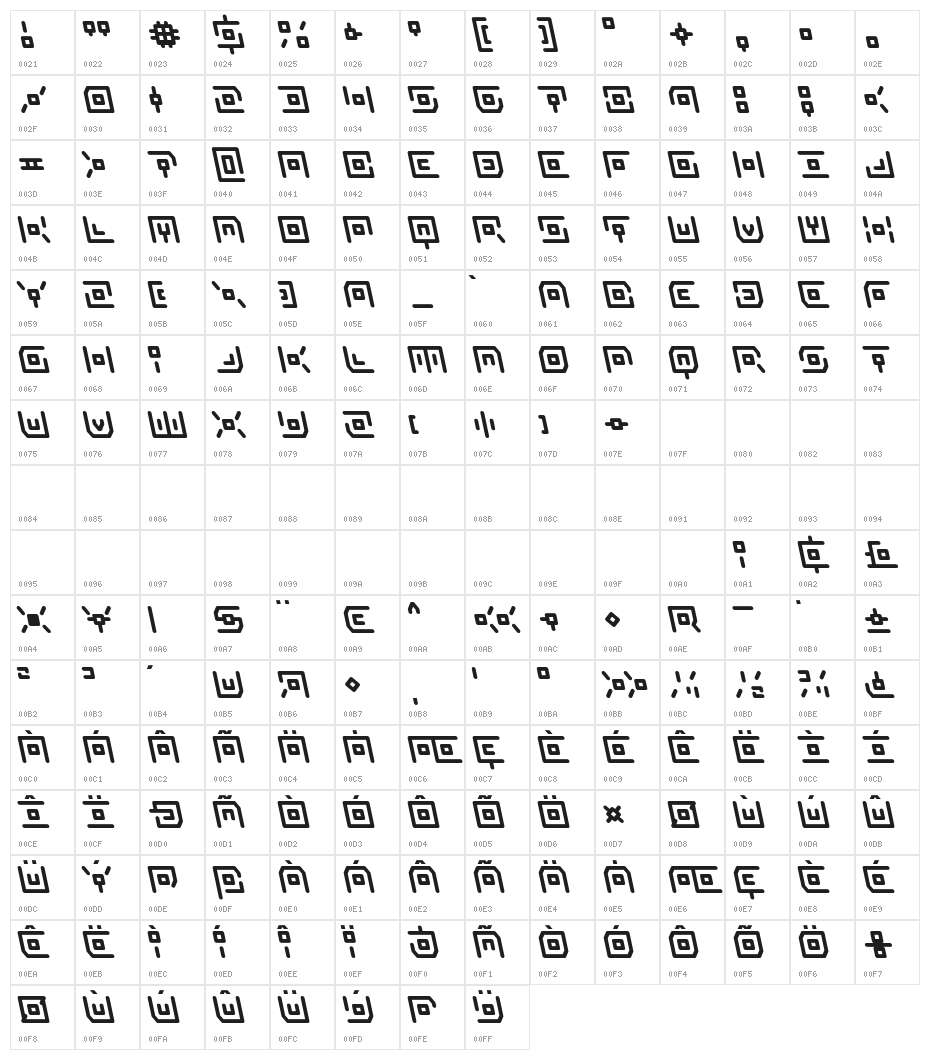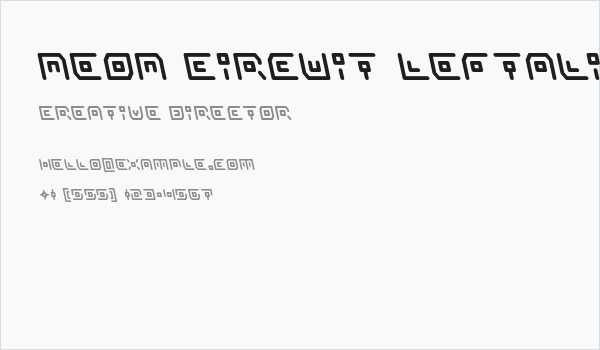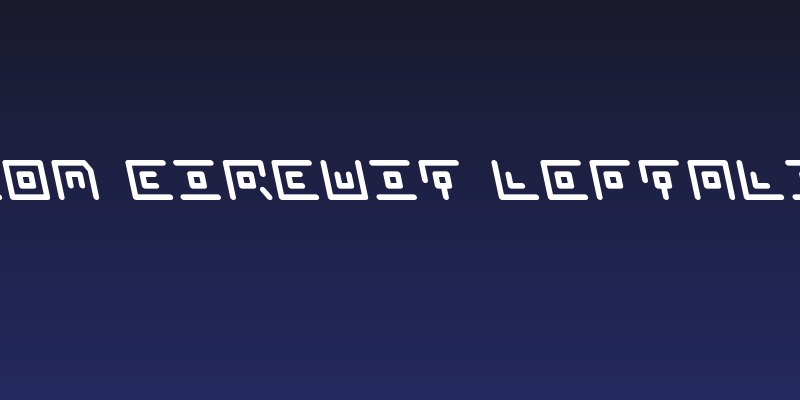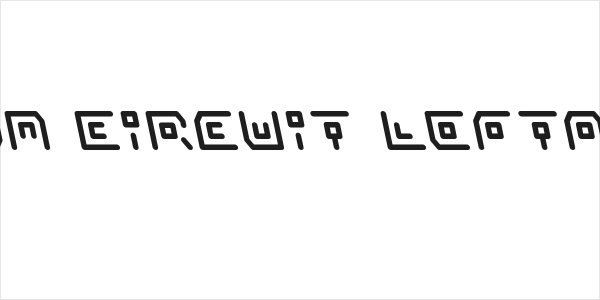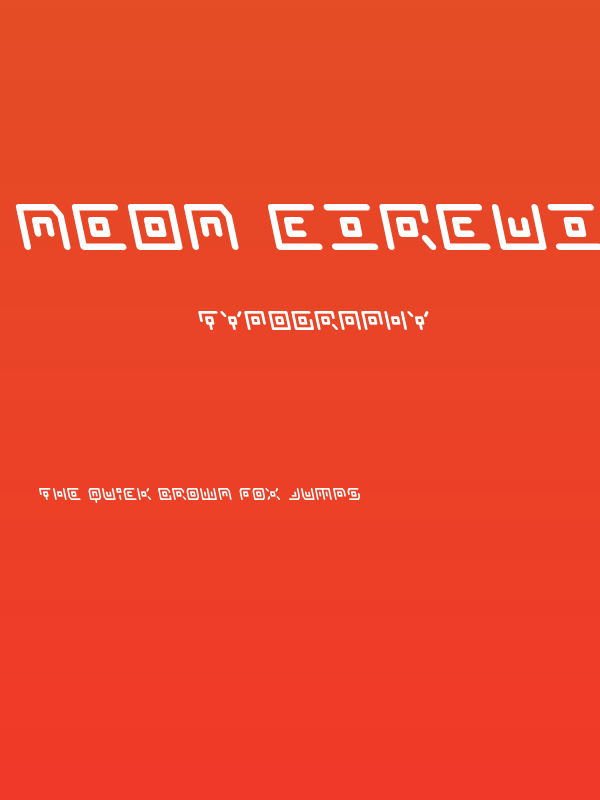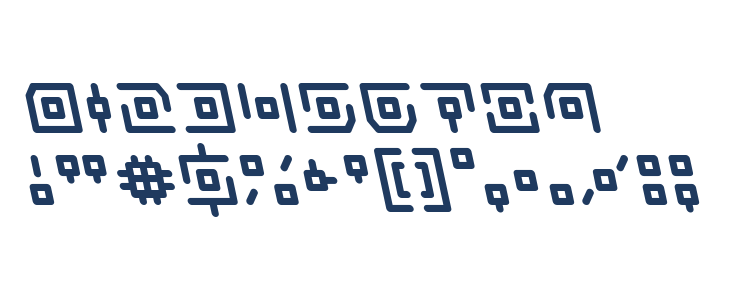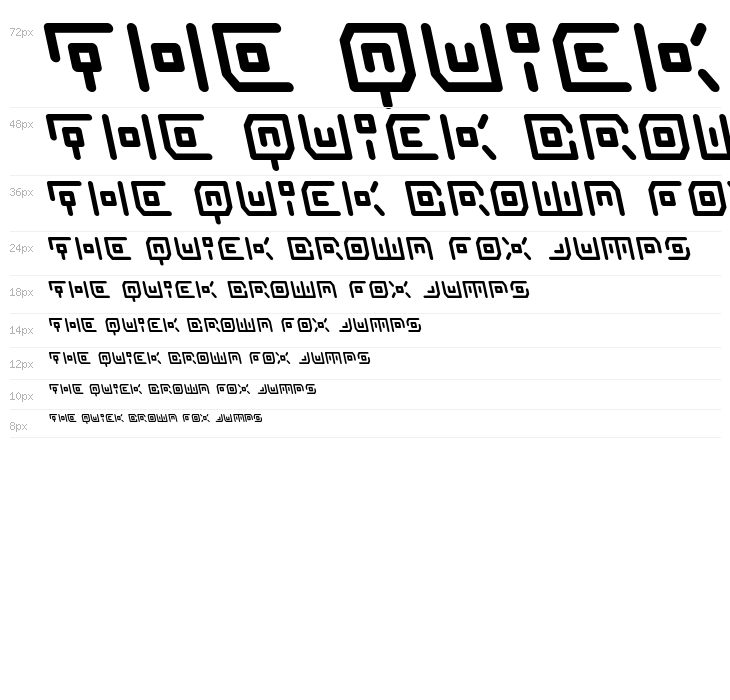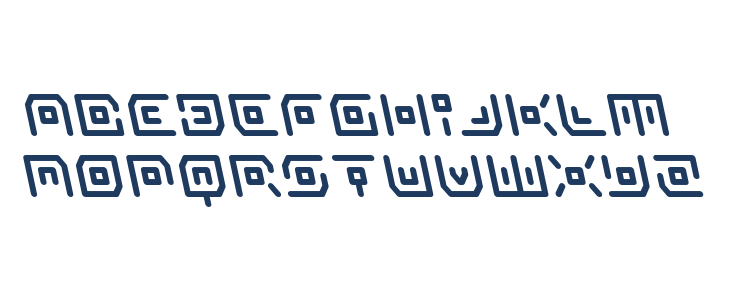
Neon Circuit Leftalic Font
Neon Circuit Leftalic Description
This font features a futuristic and digital aesthetic, reminiscent of circuit board patterns and neon signage. The characters are composed of geometric shapes with sharp angles and a consistent line thickness, giving it a highly stylized and modern appearance. The design is both intricate and bold, making it stand out in any application. The uppercase and lowercase letters maintain a uniform style, while the numbers and special characters complement the overall theme with similar angular and geometric forms.
| Proposed Projects | Ideal for tech-related branding, sci-fi themed projects, digital art, and modern advertising campaigns. |